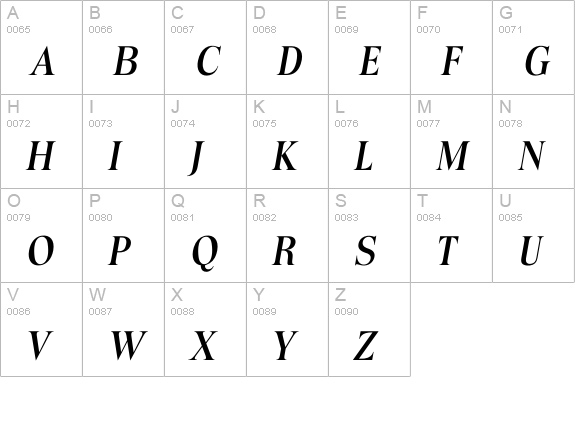
Itoledo Medium is a balanced, medium-weight variant in the Itoledo typeface family \xE2\x80\x94 well suited to sub-headlines, navigation, and balanced editorial work.
Itoledo Medium is a modern and versatile typeface that exudes elegance and sophistication. This font strikes the perfect balance between professionalism and creativity, making it ideal for a wide range of design projects. Its clean and legible characters are meticulously crafted to ensure optimal readability in both print and digital formats. With its medium weight, Itoledo Medium offers a subtle boldness that adds character to any text. Whether used for headlines, body text, or branding materials, this font effortlessly captures attention and conveys a sense of confidence. What sets Itoledo Medium apart is that it is not only a visually stunning font, but it is also free. Yes, you read that right! This exceptional typeface is freely available to download at FontsMarket.com. Now, you can enhance your design projects without breaking the bank. So why wait? Take advantage of this amazing opportunity and experience the beauty and versatility of Itoledo Medium. Download it for free today at FontsMarket.com and let your creativity flourish.